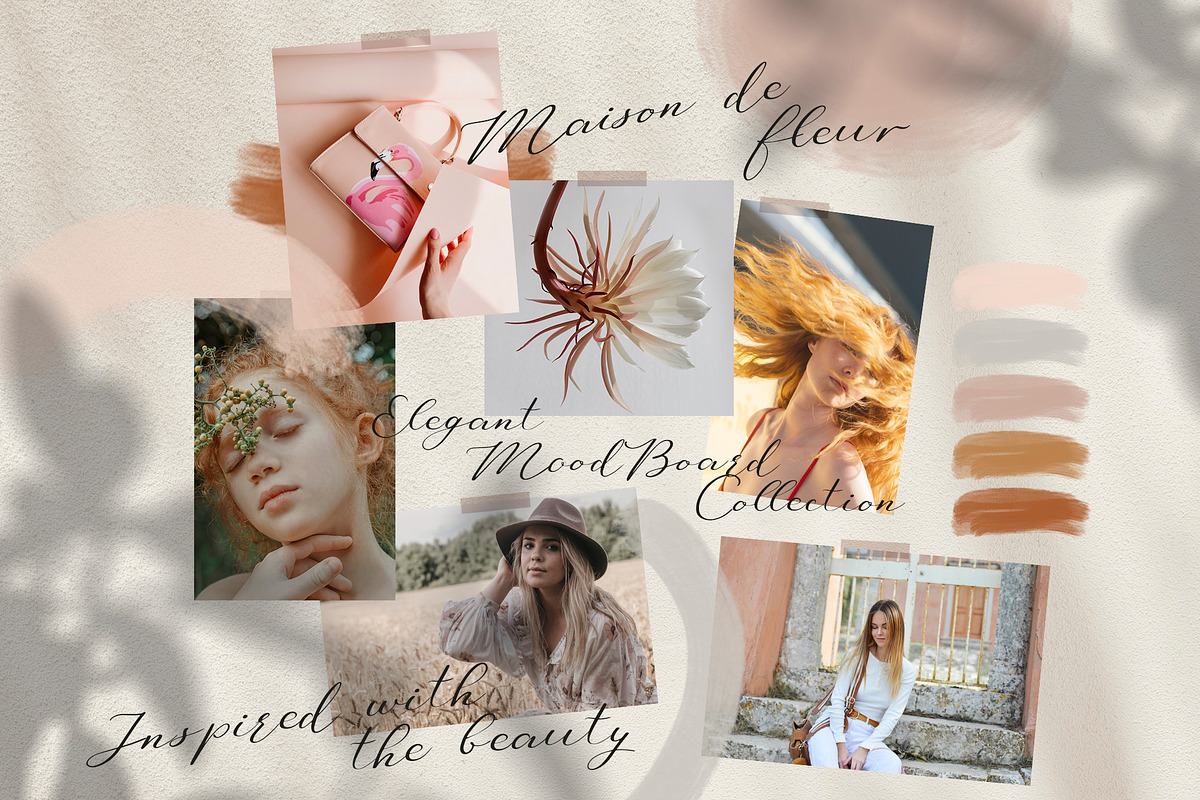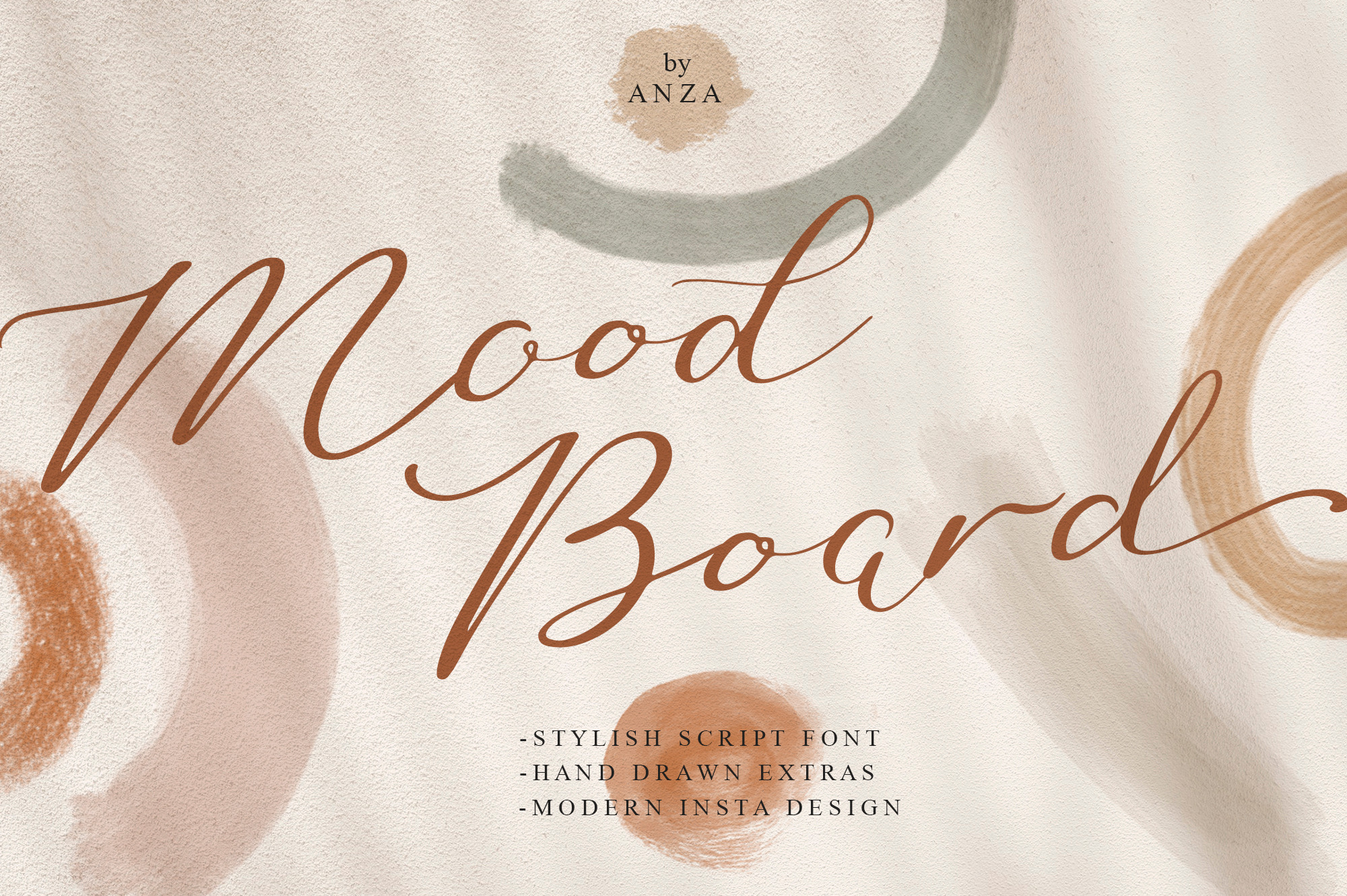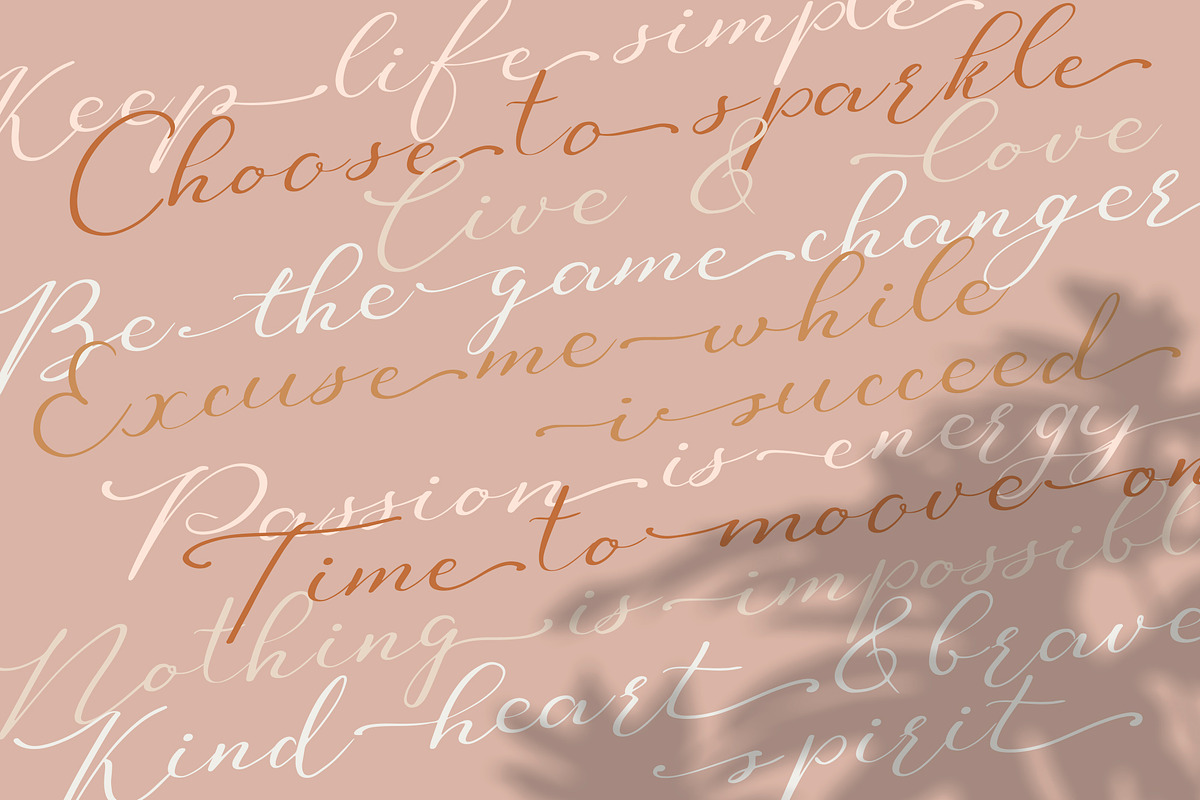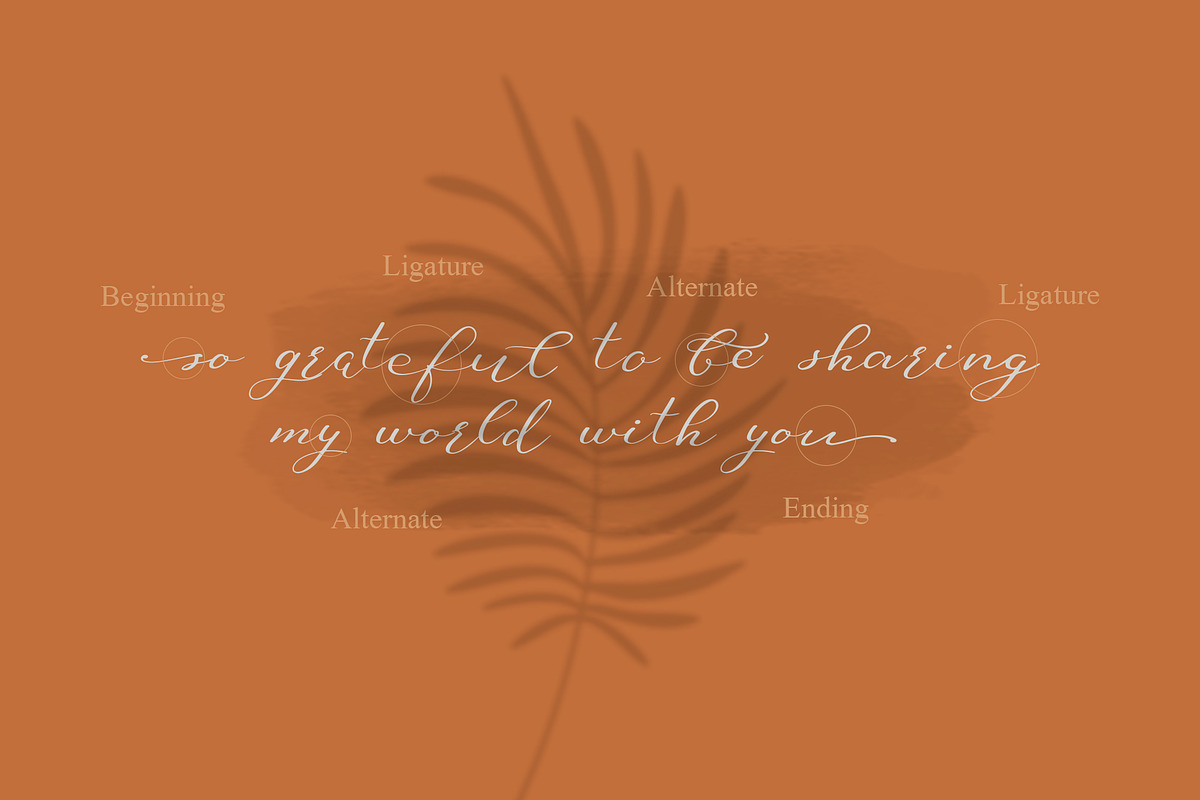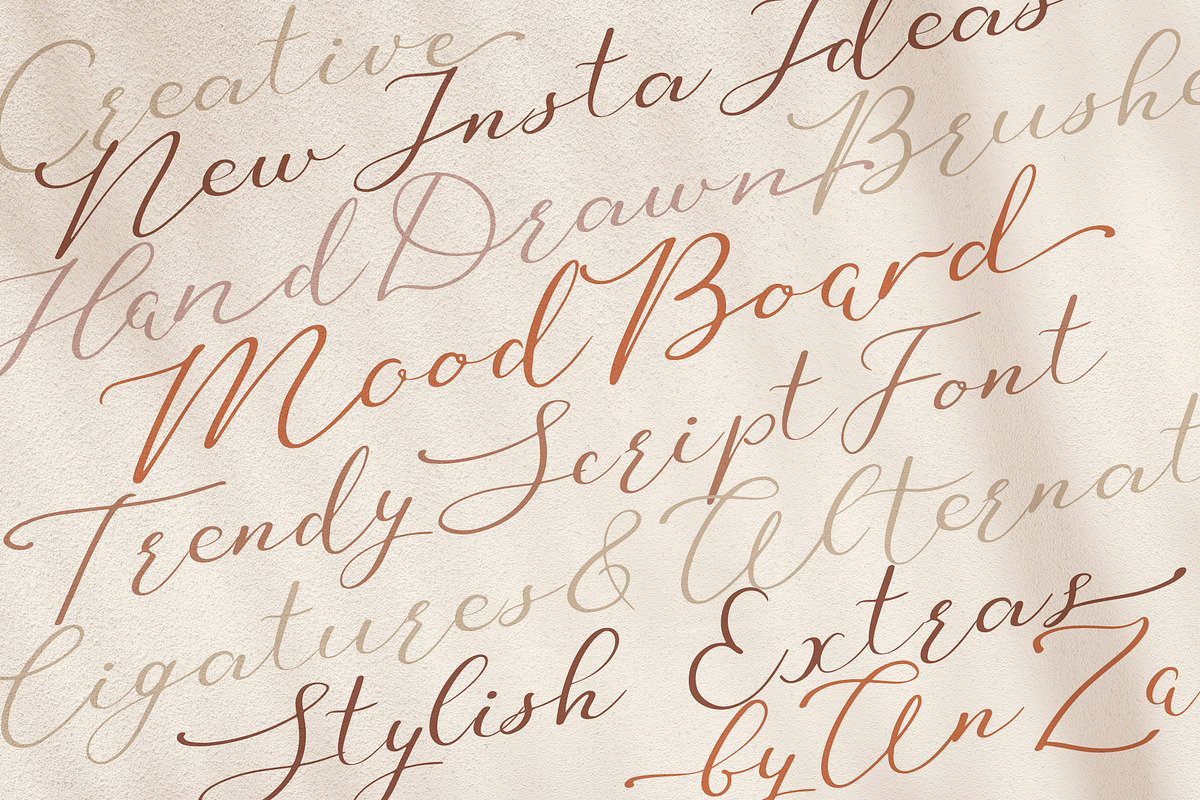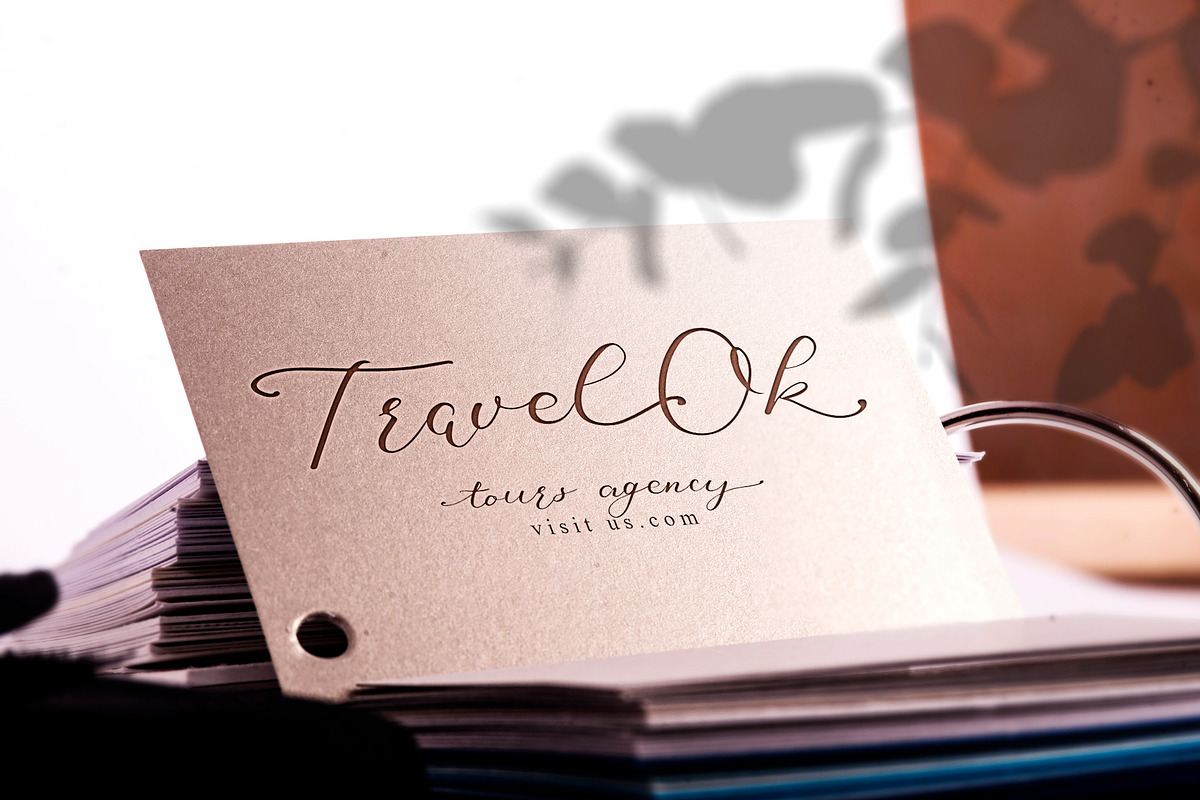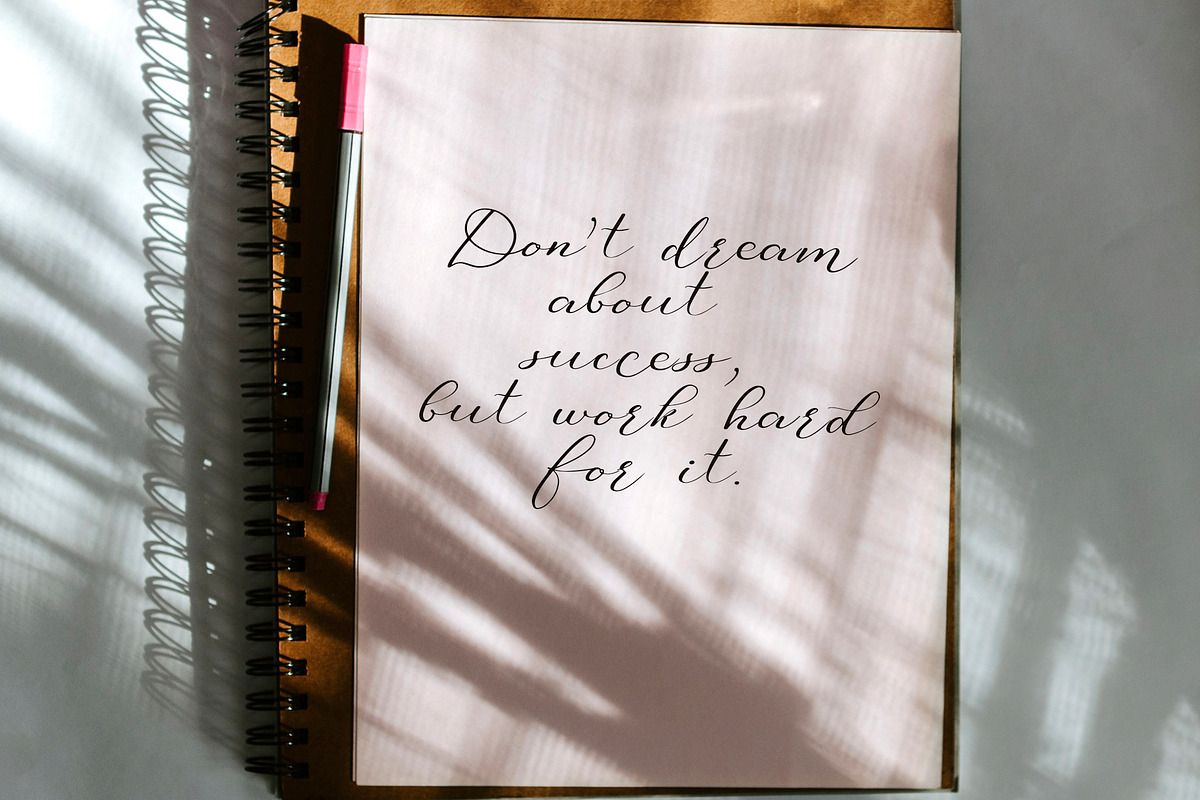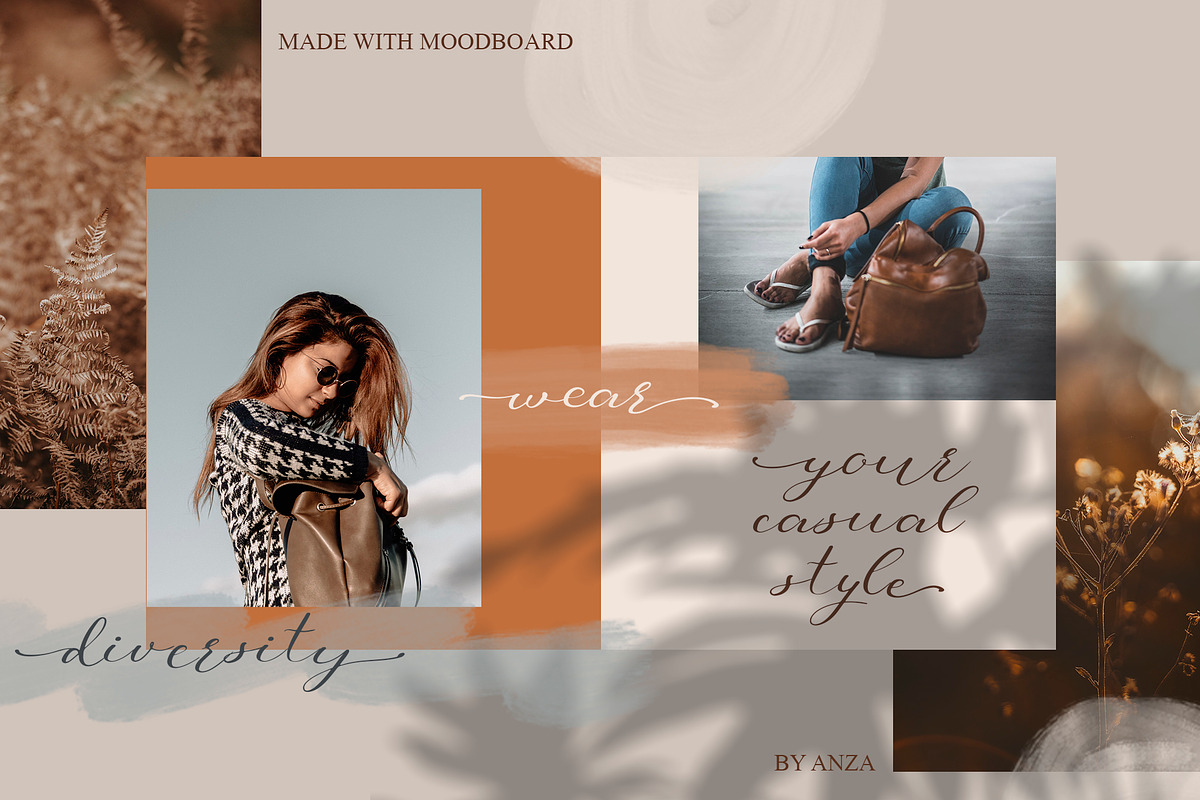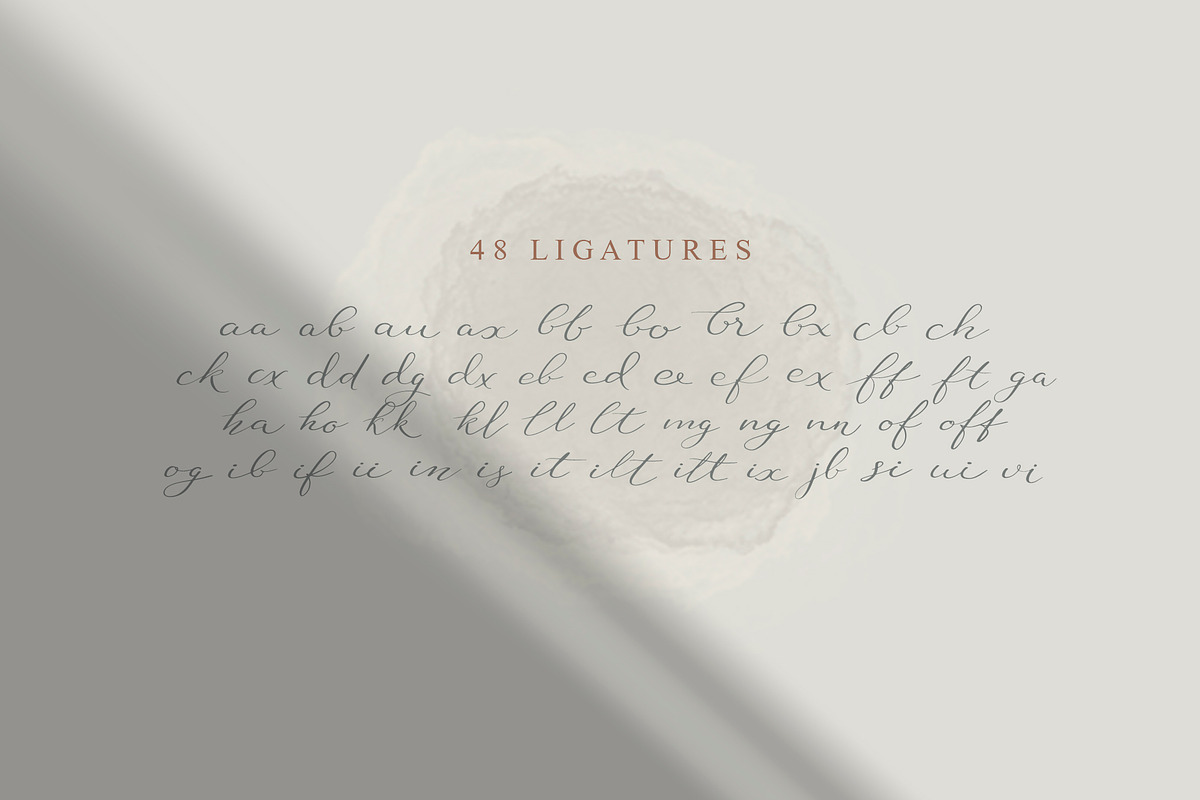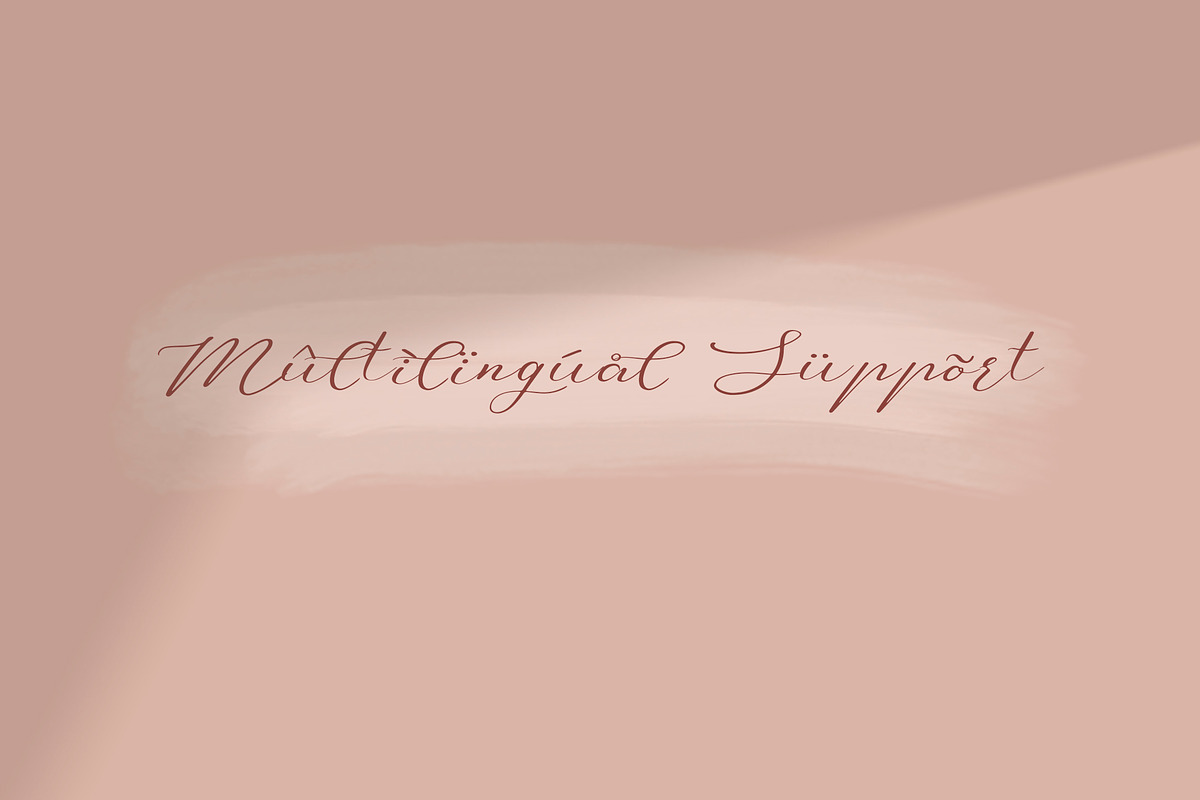
Mood Board script font
Don’t miss special offer of this summer! Mood Board collection is stylish brushed script font pairedwith hand painted textured and transparent shapes for your stunning design. This pack looksgorgeous while using it in Instagram posts for example. It looks classy and trully professional at thesame time.
Mood Board is the owner of endless possibilities! It is perfect for multiple contexts. Works great inmood boards, posters, logos, headlines, packaging, advertising, branding and so much more.Just create the best romantic, urban or rustic, elegant or dynamic designs.
Mood Board font has uppercase and lowercase letters, numbers & basic punctuation, alternates andligarures, multiligual support (French, German, Italian, Norwegian, Portuguese, Spanish, Swedish,Swiss German).